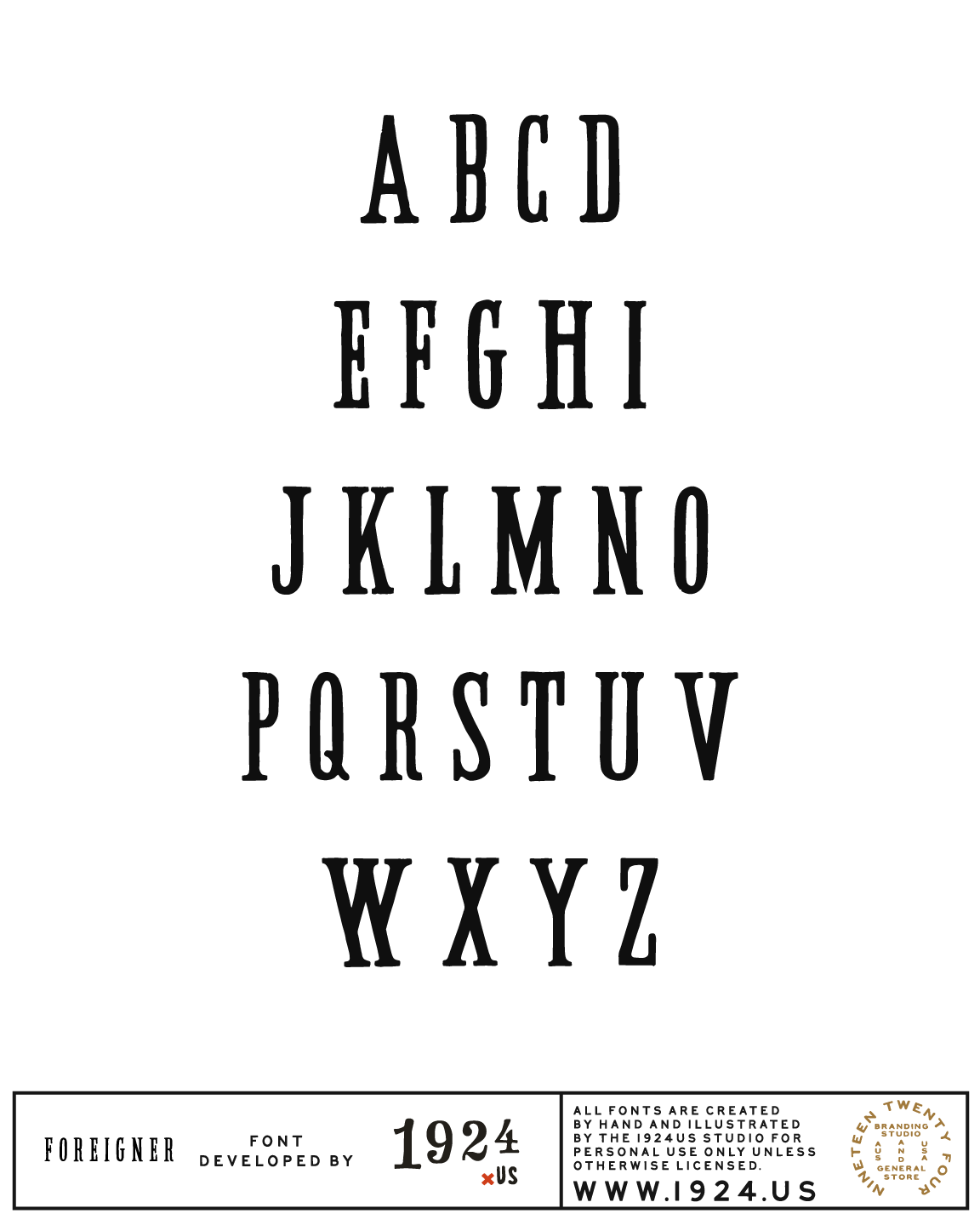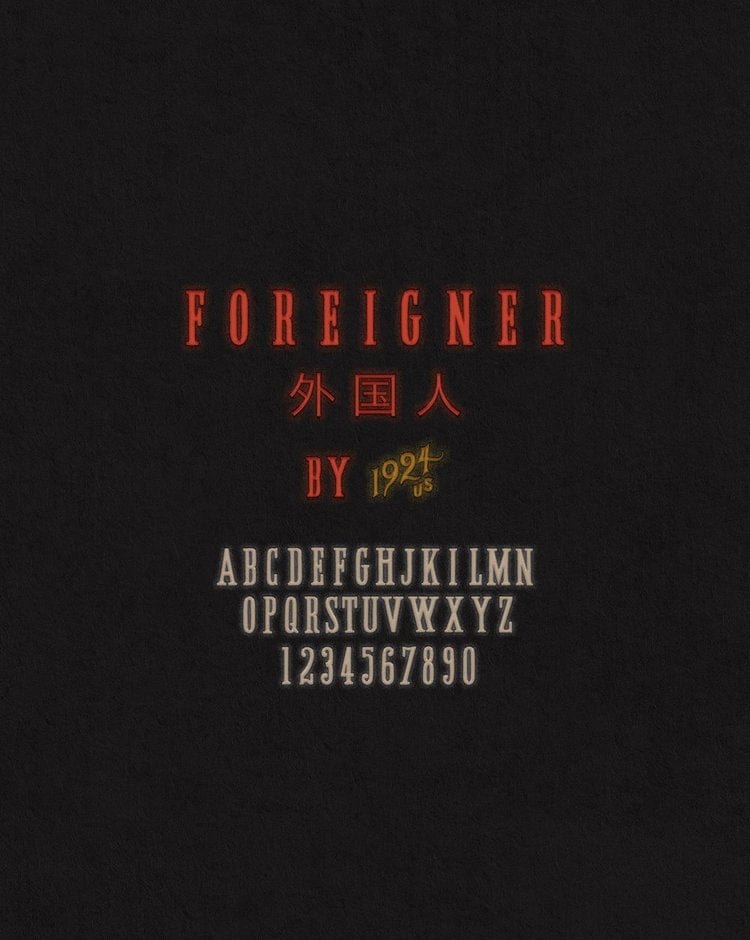
Foreigner Font by 1924us
The Foreigner Font is inspired by old and modern takes on Western films, heavily originally inspired by those of Japanese background. Japan has always played a large roll in my life as a designer, from the music to the landscape and their appreciation for not only their own culture, but the American as well. This font is especially dedicated to our friends at CLUTCH mag who have inspired our works over the recent years. We hope this font is a testament to that, a bold tall 1900’s style font that showcases unique special characters and kerning. 100% user friendly, color changeable with impeccable spacing. Thank you!
Foreigner Font by 1924us
The Foreigner Font is inspired by old and modern takes on Western films, heavily originally inspired by those of Japanese background. Japan has always played a large roll in my life as a designer, from the music to the landscape and their appreciation for not only their own culture, but the American as well. This font is especially dedicated to our friends at CLUTCH mag who have inspired our works over the recent years. We hope this font is a testament to that, a bold tall 1900’s style font that showcases unique special characters and kerning. 100% user friendly, color changeable with impeccable spacing. Thank you!